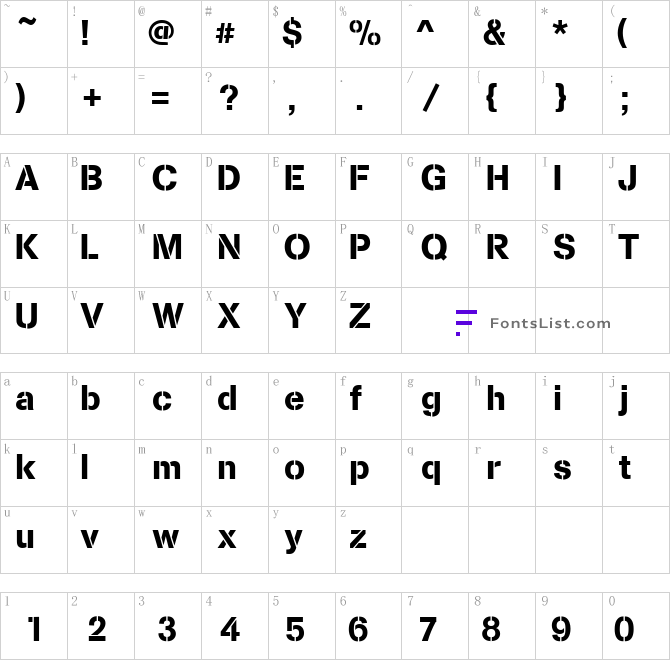
- Font Name:Cargo Becker
Cargo_Becker.ttf is a very beautiful artistic font, Cargo_Becker.ttf is widely used in the design and printing of various books and pictures,Cargo_Becker.ttf has a strong visual impact,Cargo_Becker.ttf is a commonly used font in newspapers, magazines and books, and is used in posters, e-commerce Poster design, store design, logo design, font design and other fields.Cargo_Becker.